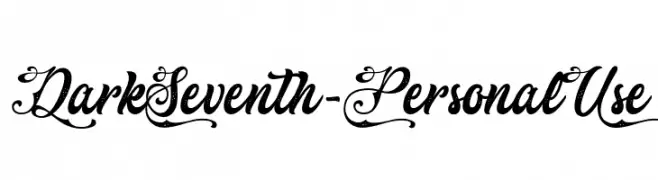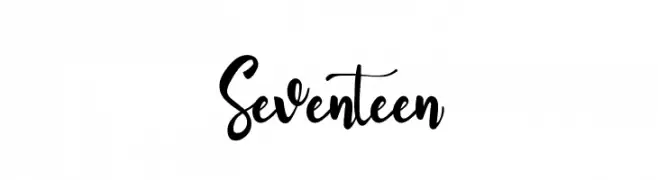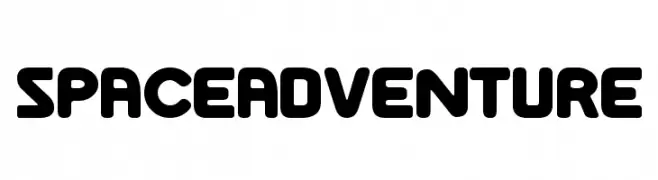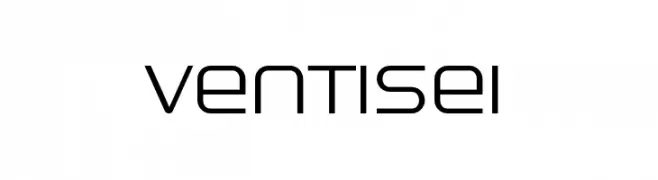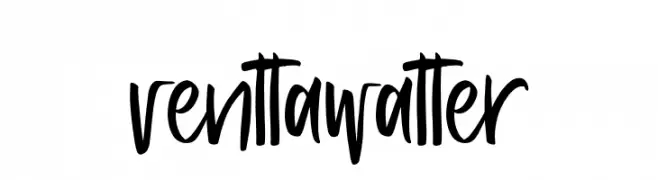
A bold, rounded font with a futuristic and playful design.
A bold, angular font with a shadow effect for dramatic visual impact.
A jagged, eerie font perfect for horror themes with scratch-like strokes.
A bold, brush-style font with dynamic, handcrafted strokes.
A bold, cursive font with a pirate-inspired, adventurous style.
A bold, expressive handwritten font with dynamic, fluid strokes.
A bold, angular font with a blocky, geometric style and a rugged, adventurous feel.
A lively and expressive script font with flowing, interconnected letterforms.
A modern, geometric font with clean lines and rounded edges.
An ornate and decorative font with elaborate swirls and flourishes.